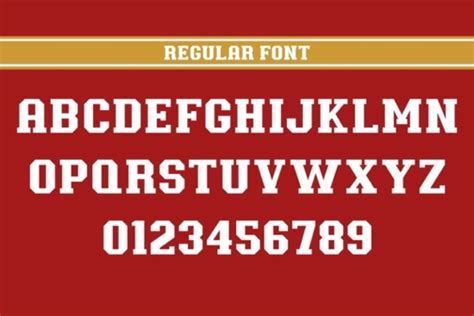
Font New701BT: A Comprehensive Guide
Hey guys! Ever stumbled upon a font that just clicks ? Today, we’re diving deep into one that might just become your new favorite: Font New701BT . This guide will cover everything from its history and characteristics to its best uses and where to find it. So, buckle up, and let’s get started!
What is Font New701BT?
Font New701BT is more than just a typeface; it’s a design element that can significantly impact the look and feel of your projects. To truly appreciate Font New701BT, it’s essential to understand its origins and the design philosophy behind it. Fonts often carry the personality and intention of their creators, and New701BT is no exception. Knowing its background can help you leverage it more effectively in your work. The history of a font often reveals the context in which it was created, which can provide clues about its intended use. For example, a font designed during the Art Deco period will likely have different characteristics than one created in the digital age. Therefore, exploring the historical background can provide valuable insights into the font’s aesthetic and functional properties. Different fonts have different strengths. Some are great for headlines, while others are better suited for body text. Understanding these nuances can save you a lot of time and effort in the long run. Some fonts also come with variations, such as different weights (e.g., bold, light, regular) and styles (e.g., italic, condensed). These variations can offer additional flexibility in your design work. Finally, understanding the licensing terms associated with a font is crucial to avoid any legal issues. Some fonts are free to use for both personal and commercial projects, while others require a license fee. Always check the licensing terms before using a font in your work.
History and Origin
The history and origin of Font New701BT are fascinating. It’s a typeface that has evolved, adapting to various design trends while maintaining its unique identity. Fonts, like any design element, are influenced by the historical and cultural contexts in which they are created. Understanding the historical backdrop can provide valuable insights into the font’s aesthetic and functional properties. The origin story often reveals the font’s intended use, whether it was designed for print, digital media, or a specific industry. Fonts are often created with specific purposes in mind, such as readability in body text or visual impact in headlines. Knowing the original intent can help you leverage the font more effectively in your own projects. The evolution of a font can reflect changing design preferences and technological advancements. For instance, a font may have been initially designed for letterpress printing but later adapted for digital use. These adaptations can introduce new features and styles, expanding the font’s versatility. It’s also interesting to note any notable designers or foundries associated with the font, as their influence can provide additional context. Designers often bring their unique perspectives and expertise to the creation of fonts, resulting in distinctive and innovative typefaces. Finally, tracing the historical path of a font can help you appreciate its cultural significance and lasting impact on the world of typography. Fonts are not just tools; they are cultural artifacts that reflect the values and aesthetics of their time.
Key Characteristics
When we talk about the key characteristics of Font New701BT , we’re looking at what makes it stand out. Is it the clean lines, the elegant curves, or maybe the unique serifs? Fonts are defined by their visual attributes, which contribute to their overall aesthetic and readability. These characteristics can include the shape of the letters, the spacing between them, and the weight and style of the typeface. Key features like x-height, ascenders, and descenders play a crucial role in how the font appears on the page or screen. The x-height refers to the height of the lowercase letters, while ascenders and descenders are the parts of the letters that extend above and below the x-height. These elements affect the font’s legibility and visual balance. The contrast between thick and thin strokes is another important characteristic that can influence the font’s appearance. High-contrast fonts tend to have a more elegant and refined look, while low-contrast fonts are often more readable in smaller sizes. Serifs, the small decorative strokes at the ends of letterforms, also play a significant role in defining a font’s character. Serif fonts are often associated with tradition and formality, while sans-serif fonts tend to have a more modern and minimalist aesthetic. Finally, the overall spacing and kerning of the font can greatly impact its readability and visual appeal. Proper spacing ensures that the letters are neither too close nor too far apart, while kerning adjusts the spacing between individual letter pairs to create a more harmonious appearance.
Why Choose Font New701BT?
Choosing the right font is crucial for any design project. Font New701BT offers a unique blend of readability and style, making it a versatile choice for various applications. The right font can enhance the overall aesthetic and effectiveness of your design. Fonts are not just decorative elements; they play a vital role in conveying your message and creating a visual hierarchy. When selecting a font, it’s important to consider its readability, visual appeal, and suitability for your specific project. Readability refers to how easily the font can be read, especially in body text. A highly readable font ensures that your message is clear and accessible to your audience. Visual appeal, on the other hand, contributes to the overall aesthetic of your design. A well-designed font can enhance the visual impact of your project and create a more engaging experience for the viewer. The suitability of the font depends on the context in which it will be used. A font that works well for a website might not be the best choice for a printed brochure. Therefore, it’s essential to consider the medium, audience, and purpose of your project when selecting a font. Ultimately, choosing the right font can make a significant difference in the success of your design. A carefully selected font can enhance readability, improve visual appeal, and convey your message more effectively.
Readability and Legibility
Readability and legibility are two critical aspects of any font, and Font New701BT excels in both. Readability refers to how easily the font can be read in extended text, while legibility refers to how easily individual letters can be distinguished from one another. Readability is influenced by factors such as letter spacing, line height, and the overall design of the typeface. A highly readable font ensures that your message is clear and accessible to your audience. Legibility, on the other hand, is affected by the shape of the letters and the presence of distinctive features. A legible font allows readers to quickly and accurately identify each letter, even in small sizes or poor lighting conditions. When selecting a font, it’s important to consider both readability and legibility to ensure that your text is both visually appealing and easy to understand. Fonts with good readability and legibility can improve the overall reading experience and reduce eye strain. They can also help to maintain the reader’s attention and engagement with the text. Therefore, choosing a font that excels in both readability and legibility is essential for effective communication.
Versatility in Design
Versatility is where Font New701BT truly shines. It’s not just a one-trick pony; it can adapt to various design styles and purposes. Fonts are versatile design elements that can be used in a wide range of applications, from print to digital media. Versatile fonts can adapt to different styles and purposes, making them a valuable asset for any designer. When selecting a font, it’s important to consider its versatility to ensure that it can be used effectively in various contexts. A versatile font can save you time and effort by eliminating the need to search for different fonts for each project. It can also help to maintain a consistent visual identity across different platforms and media. Versatility is influenced by factors such as the font’s weight, style, and character set. A font with multiple weights and styles can be used for headlines, body text, and captions. A comprehensive character set ensures that the font supports a wide range of languages and symbols. Ultimately, versatility is a key attribute that can make a font a valuable and indispensable tool for any designer.
Best Uses for Font New701BT
Okay, so where does Font New701BT really kill it? Let’s look at some ideal applications. Choosing the right font for a specific project is crucial for effective communication and visual appeal. Different fonts have different strengths and are better suited for certain applications. When selecting a font, it’s important to consider the purpose, audience, and medium of your project. A font that works well for a website might not be the best choice for a printed brochure. Therefore, it’s essential to carefully evaluate the different options and choose a font that aligns with your specific needs. For example, a serif font might be a good choice for a formal document or a traditional website, while a sans-serif font might be more appropriate for a modern and minimalist design. Ultimately, the best font for your project will depend on your specific goals and objectives. A well-chosen font can enhance readability, improve visual appeal, and convey your message more effectively.
Headlines and Titles
For headlines and titles, Font New701BT offers a commanding presence without being overwhelming. A well-chosen font can make a strong visual statement and capture the reader’s attention. Headlines and titles are crucial elements of any design, and selecting the right font is essential for creating an effective visual hierarchy. The font should be both visually appealing and easy to read, ensuring that the message is clear and accessible. Different fonts convey different tones and emotions, so it’s important to choose a font that aligns with the overall message and style of your project. A bold and impactful font might be a good choice for a headline that needs to grab attention, while a more elegant and refined font might be more appropriate for a title that needs to convey sophistication. Ultimately, the best font for headlines and titles will depend on the specific context and goals of your project. A carefully selected font can enhance the visual impact of your design and ensure that your message is effectively communicated.
Body Text
In body text, Font New701BT provides excellent readability, ensuring a comfortable reading experience. The choice of font for body text is critical for ensuring readability and maintaining the reader’s attention. A well-chosen font can improve the overall reading experience and reduce eye strain. When selecting a font for body text, it’s important to consider factors such as letter spacing, line height, and the overall design of the typeface. The font should be easy to read in extended text, allowing readers to comfortably engage with the content. Different fonts have different levels of readability, so it’s essential to test several options to determine which one works best for your specific project. A font that is too ornate or decorative can be distracting and make it difficult to read long passages of text. Therefore, it’s generally best to choose a font that is clean, simple, and easy on the eyes. Ultimately, the best font for body text will depend on the specific context and audience of your project. A carefully selected font can enhance readability, improve the overall reading experience, and ensure that your message is effectively communicated.
Conclusion
So, there you have it! Font New701BT is a versatile and stylish font that can elevate your design projects. Whether you’re working on headlines, body text, or branding, it’s definitely worth considering. Happy designing, guys! Choosing the right font can make a significant difference in the overall success of your design. A carefully selected font can enhance readability, improve visual appeal, and convey your message more effectively. When selecting a font, it’s important to consider factors such as the purpose, audience, and medium of your project. Different fonts have different strengths and are better suited for certain applications. A font that works well for a website might not be the best choice for a printed brochure. Therefore, it’s essential to carefully evaluate the different options and choose a font that aligns with your specific needs. Ultimately, the best font for your project will depend on your specific goals and objectives. A well-chosen font can enhance readability, improve visual appeal, and convey your message more effectively.